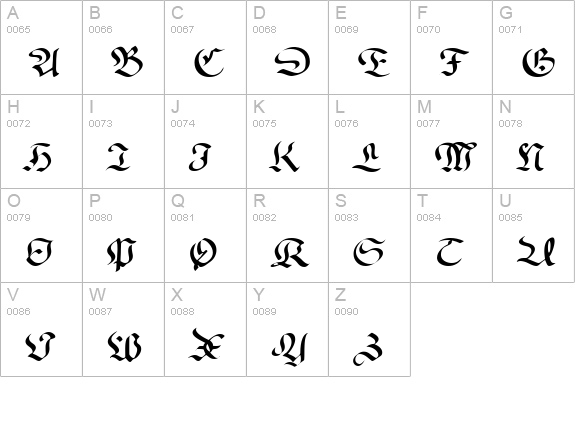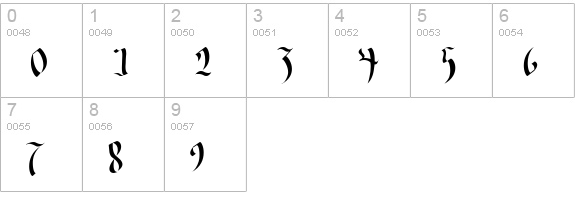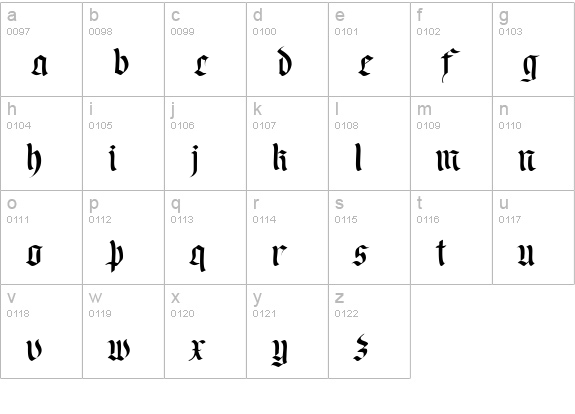
The Old German DB font is a timeless and elegant typeface that exudes a sense of history and sophistication. Its intricate details and vintage charm make it perfect for adding a touch of old-world flair to your designs. With its bold strokes and classic letterforms, this font is ideal for creating logos, signage, and invitations that demand attention. The best part? Old German DB is available for free download at FontsMarket.com. Whether you're a designer looking to add a unique touch to your projects or a typophile seeking a new favorite font, Old German DB is sure to impress with its distinctive style and versatility. Download it today and elevate your designs with a touch of vintage beauty.